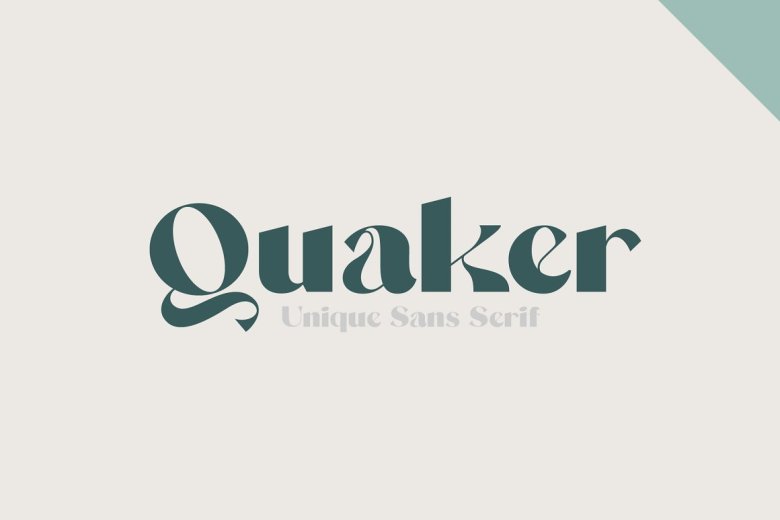
Quaker Font
Quaker Font this is a stylish modern vintage sans serif typeface, Quaker make bold gorgeous headlines and elegant designs. Unique lower and uppercase, plus numbers, punctuation & multilingual letters. offered as a discount! It’s a versatile font that does well at large and small sizes.
Perfect for editorial projects, Logo design Clothing Branding or simply as a stylish text overlay to any background image.
Quaker Sans Serif Font